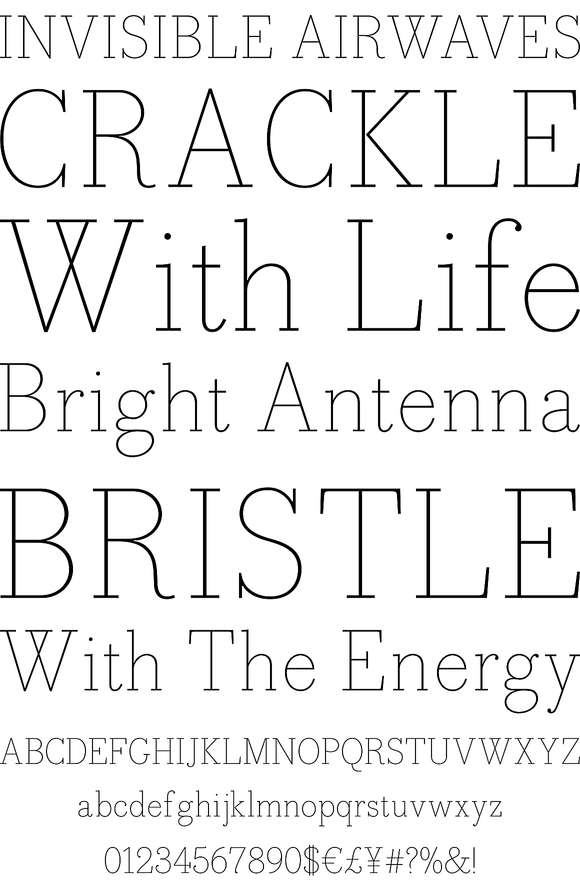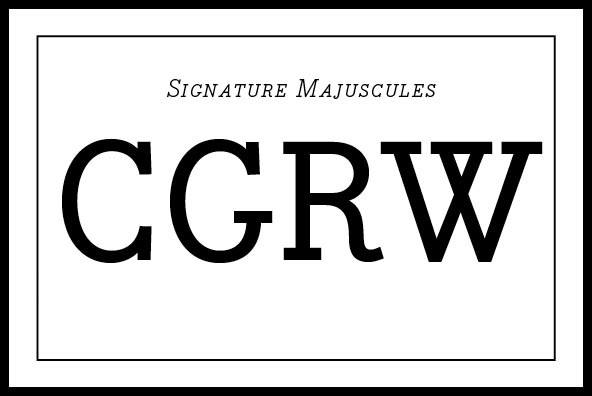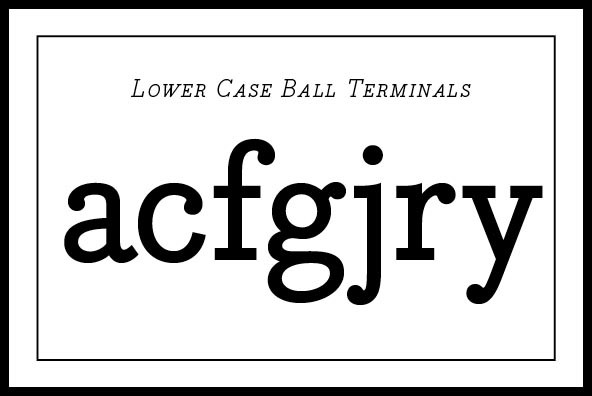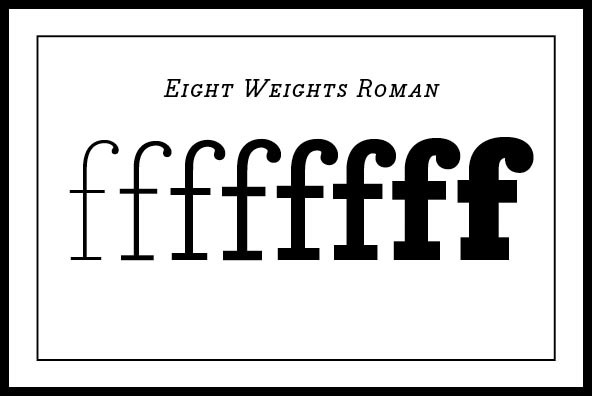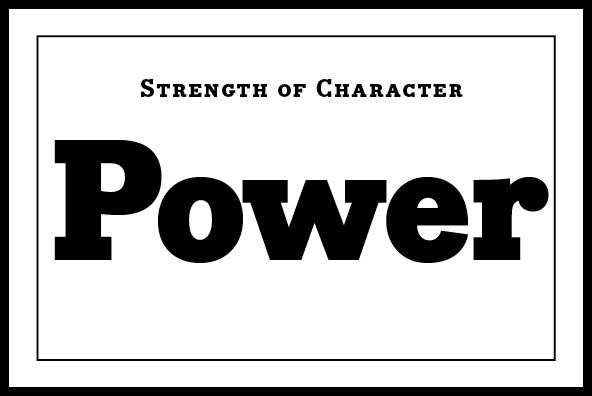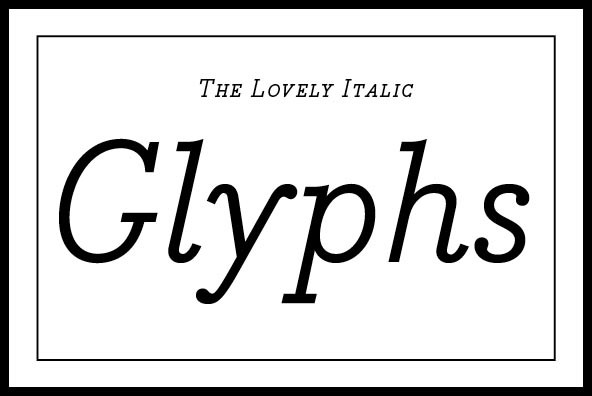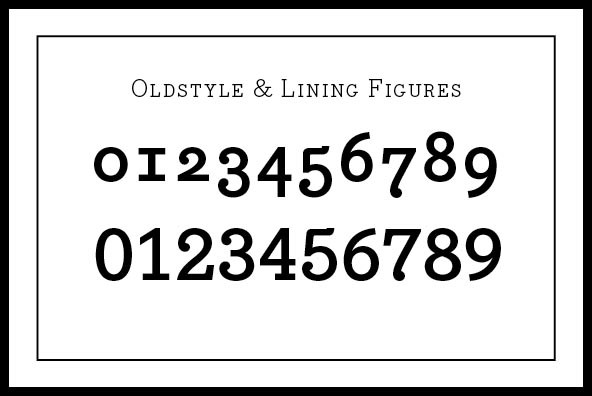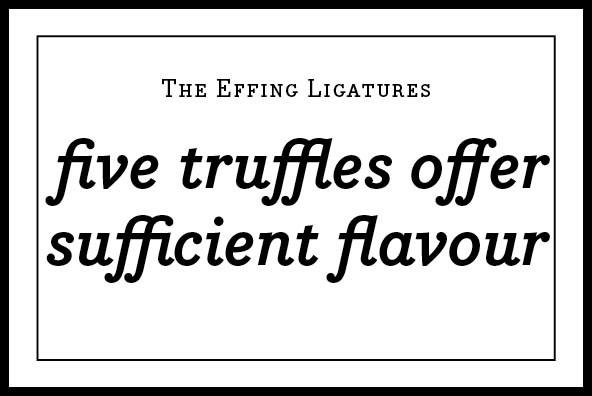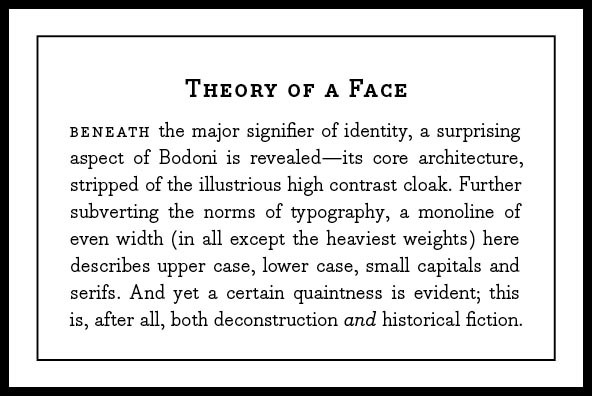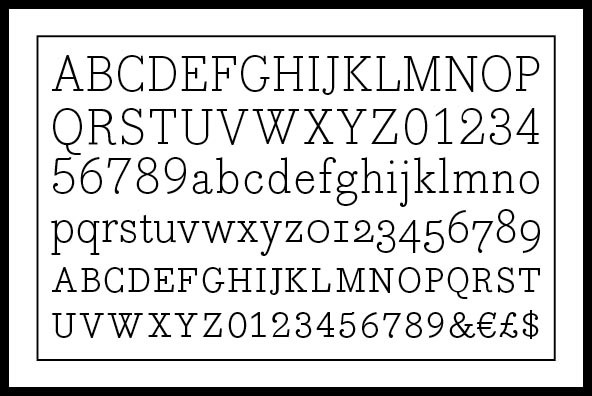
Beneath the dominant signifier of identity, a surprising dimension of Bodoni is revealed its core architecture, stripped of the famous high contrast cloak.
Beneath the dominant signifier of identity, a surprising dimension of Bodoni is revealed its core architecture, stripped of the famous high contrast cloak. Further subverting typographic norms, a monoline of even width (in all but the heaviest weights) here describes capitals, lower case, and serifs. And yet a certain quaintness is evident; this is, after all, both deconstruction and historical fiction.